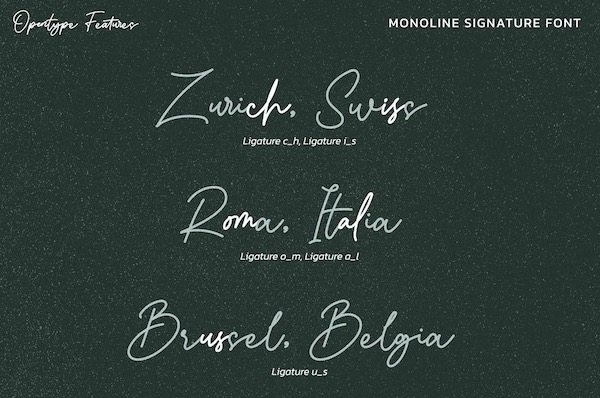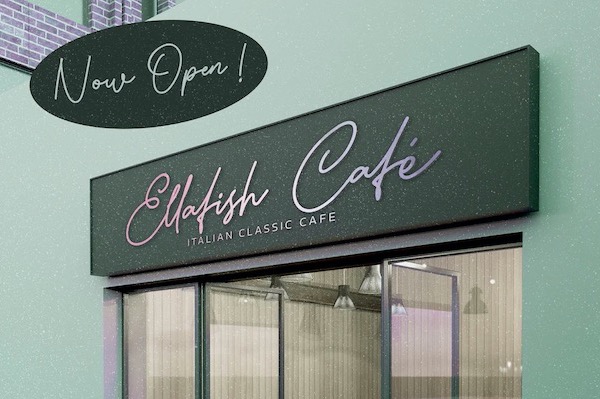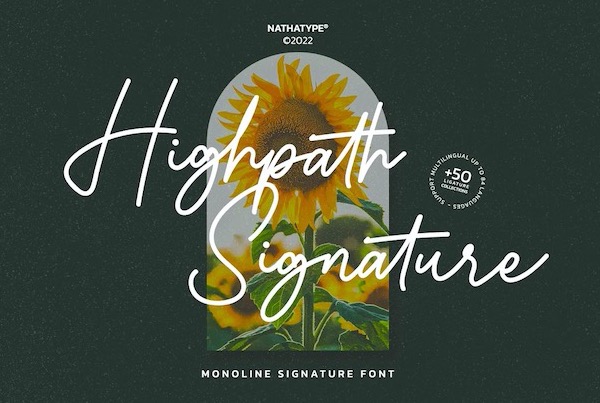
Highpath Signature is a lovely handwritten script font that was created and shared by Natha Type. This script font has vintage & retro vibes along with a natural cool signature feel. Highpath Signature supports multi-languages to make your brand globally acceptable. It’s a font with simple shapes, making it very suitable to be used on any purpose. A real head-turner for your presentation, designs, branding, quotes, invitation, website illustrations, and much more.
Highpath Signature Handwritten Font